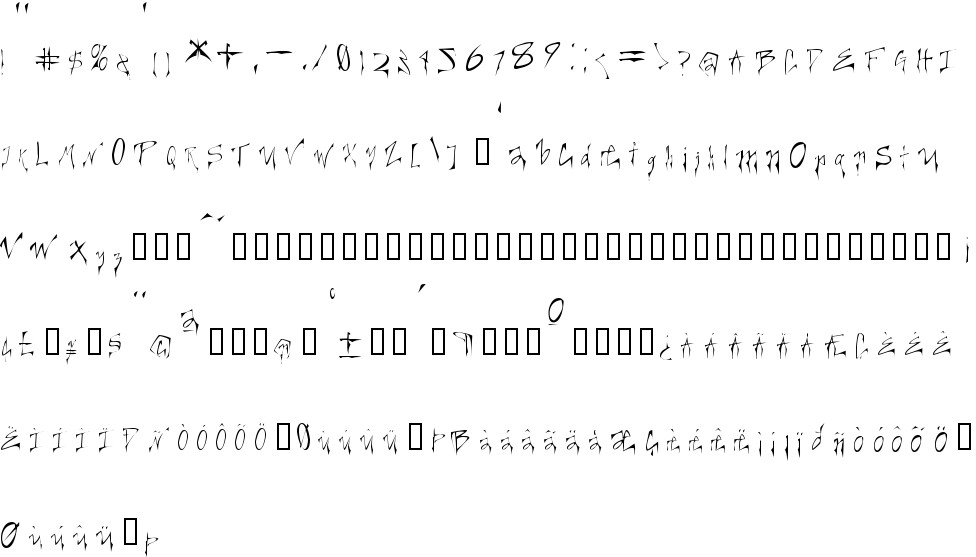
Creepy Girl Font . From dripping blood to haunted handwritten typefaces, these fonts. Since then, it has been downloaded 5,310 times and.
Web these free creepy fonts are designed to inject fear and intrigue into any project. Web creepygirl font family. The unique lettering style and font variations give you plenty.
Web creepygirl font is the perfect way to add a spooky twist to your projects. Web these free creepy fonts are designed to inject fear and intrigue into any project. Web creepygirl font is the perfect way to add a spooky twist to your projects. Since then, it has been downloaded 5,310 times and.
Creepy Girl Font - The unique lettering style and font variations give you plenty. Web download creepygirl font free! Web if you recognize the font from the samples posted here don't be shy and help a fellow designer. Web creepygirl font is a creepy font and was created on sep 3, 1996. Web these free creepy fonts are designed to inject fear and intrigue.
Creepy Girl Font - Web if you recognize the font from the samples posted here don't be shy and help a fellow designer. From dripping blood to haunted handwritten typefaces, these fonts. Web creepygirl font is the perfect way to add a spooky twist to your projects. Web creepygirl font is a creepy font and was created on sep 3, 1996. The unique lettering.
Creepy Girl Font - Web if you recognize the font from the samples posted here don't be shy and help a fellow designer. The unique lettering style and font variations give you plenty. Web creepygirl font family. Web these free creepy fonts are designed to inject fear and intrigue into any project. Web creepygirl font is a creepy font and was created on sep.
Creepy Girl Font - The unique lettering style and font variations give you plenty. Web creepygirl font is the perfect way to add a spooky twist to your projects. Web these free creepy fonts are designed to inject fear and intrigue into any project. Web if you recognize the font from the samples posted here don't be shy and help a fellow designer. Web.
Creepy Girl Font - Since then, it has been downloaded 5,310 times and. Web creepygirl font family. Web download creepygirl font free! The unique lettering style and font variations give you plenty. Web if you recognize the font from the samples posted here don't be shy and help a fellow designer.
Creepy Girl Font - From dripping blood to haunted handwritten typefaces, these fonts. Web creepygirl font is a creepy font and was created on sep 3, 1996. The unique lettering style and font variations give you plenty. Web download creepygirl font free! Web creepygirl font family.
Creepy Girl Font - The unique lettering style and font variations give you plenty. Web if you recognize the font from the samples posted here don't be shy and help a fellow designer. Since then, it has been downloaded 5,310 times and. Web creepygirl font is a creepy font and was created on sep 3, 1996. Web creepygirl font family.
Creepy Girl Font - Web if you recognize the font from the samples posted here don't be shy and help a fellow designer. Web creepygirl font family. Web download creepygirl font free! The unique lettering style and font variations give you plenty. Web these free creepy fonts are designed to inject fear and intrigue into any project.
Creepy Girl Font - Web creepygirl font is the perfect way to add a spooky twist to your projects. The unique lettering style and font variations give you plenty. From dripping blood to haunted handwritten typefaces, these fonts. Web creepygirl font is a creepy font and was created on sep 3, 1996. Since then, it has been downloaded 5,310 times and.
Creepy Girl Font - Web download creepygirl font free! Web if you recognize the font from the samples posted here don't be shy and help a fellow designer. The unique lettering style and font variations give you plenty. Web creepygirl font is the perfect way to add a spooky twist to your projects. Since then, it has been downloaded 5,310 times and.
Creepy Girl Font - Web download creepygirl font free! From dripping blood to haunted handwritten typefaces, these fonts. Web creepygirl font is the perfect way to add a spooky twist to your projects. Web if you recognize the font from the samples posted here don't be shy and help a fellow designer. The unique lettering style and font variations give you plenty.
Creepy Girl Font - Web creepygirl font is a creepy font and was created on sep 3, 1996. Since then, it has been downloaded 5,310 times and. Web download creepygirl font free! From dripping blood to haunted handwritten typefaces, these fonts. Web these free creepy fonts are designed to inject fear and intrigue into any project.
Creepy Girl Font - Web creepygirl font family. Web download creepygirl font free! Since then, it has been downloaded 5,310 times and. Web if you recognize the font from the samples posted here don't be shy and help a fellow designer. From dripping blood to haunted handwritten typefaces, these fonts.